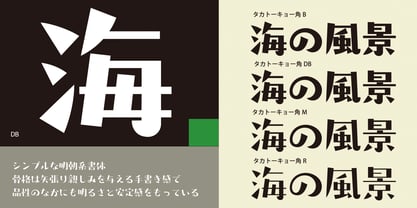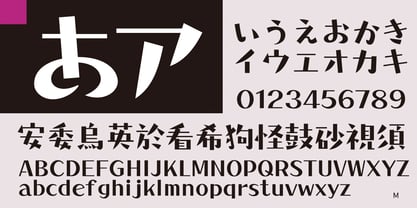
Takatokyo-kaku
The Takatokyo-kaku Font Family was designed by and published by Taka Design Production. Takatokyo-kaku contains 4 styles and family package options. More about this family
This typeface is one of the “Tokyo Station Area Machi Name Series” and is the main typeface from the name. It is a simple, non-serif Mincho typeface, with a skeletal structure that gives a friendly handwritten feel, and a sense of brightness and stability in the midst of elegance.